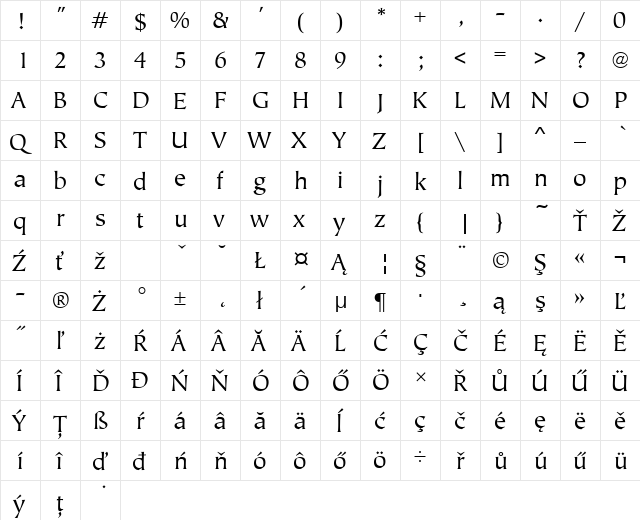
TiepoloItcTEEBoo Regular Font Preview
TiepoloItcTEEBoo Regular
Design Context for TiepoloItcTEEBoo Typeface
TiepoloItcTEEBoo is a composed and adaptable typeface that performs quietly and consistently across a wide range of design contexts.
Pro Tip: Use TiepoloItcTEEBoo in both headline and body roles to test its range before committing to a single application.